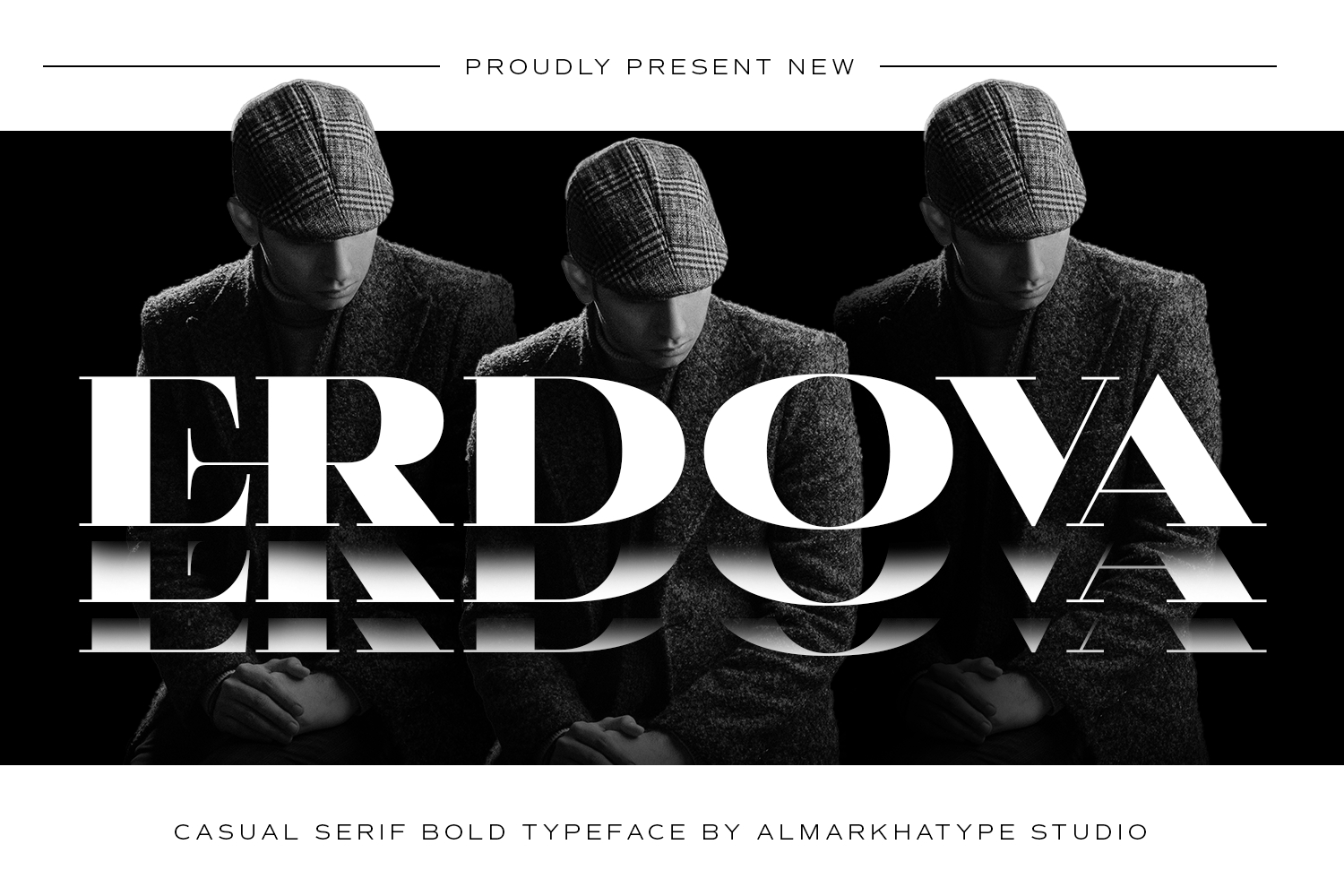
Erdova - Casual Serif Bold Typeface
Erdova is a casual serif bold typeface crafted to deliver strength, modern character, and a confident visual identity to every design. With its sharp serifs, solid structure, and striking typographic presence, Erdova brings a contemporary boldness that feels both stylish and effortlessly refined perfect for projects seeking a clean yet impactful look. Designed with attention to balance and clarity, this typeface blends bold geometric shapes with subtle serif accents, creating a versatile style suitable for both editorial elegance and modern branding. Erdova also features refined alternates and ligature options, allowing designers to explore dynamic compositions and achieve a polished, cohesive typographic voice.